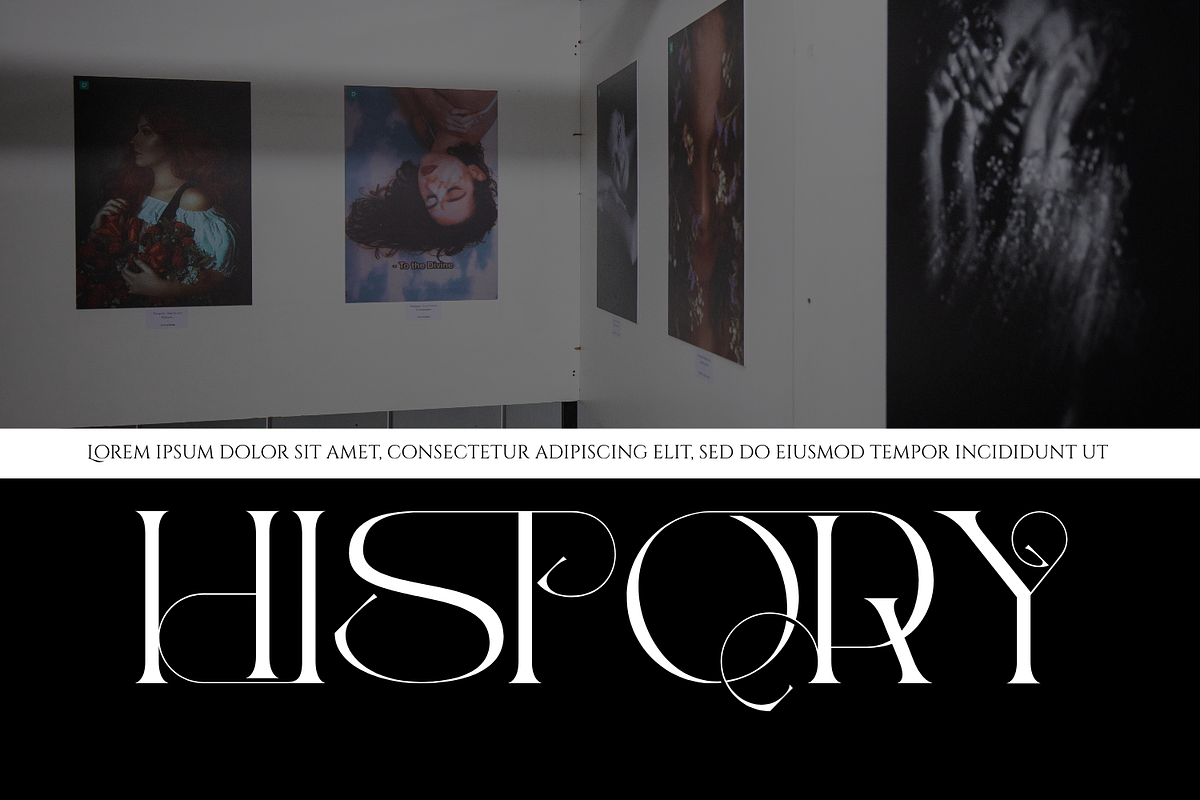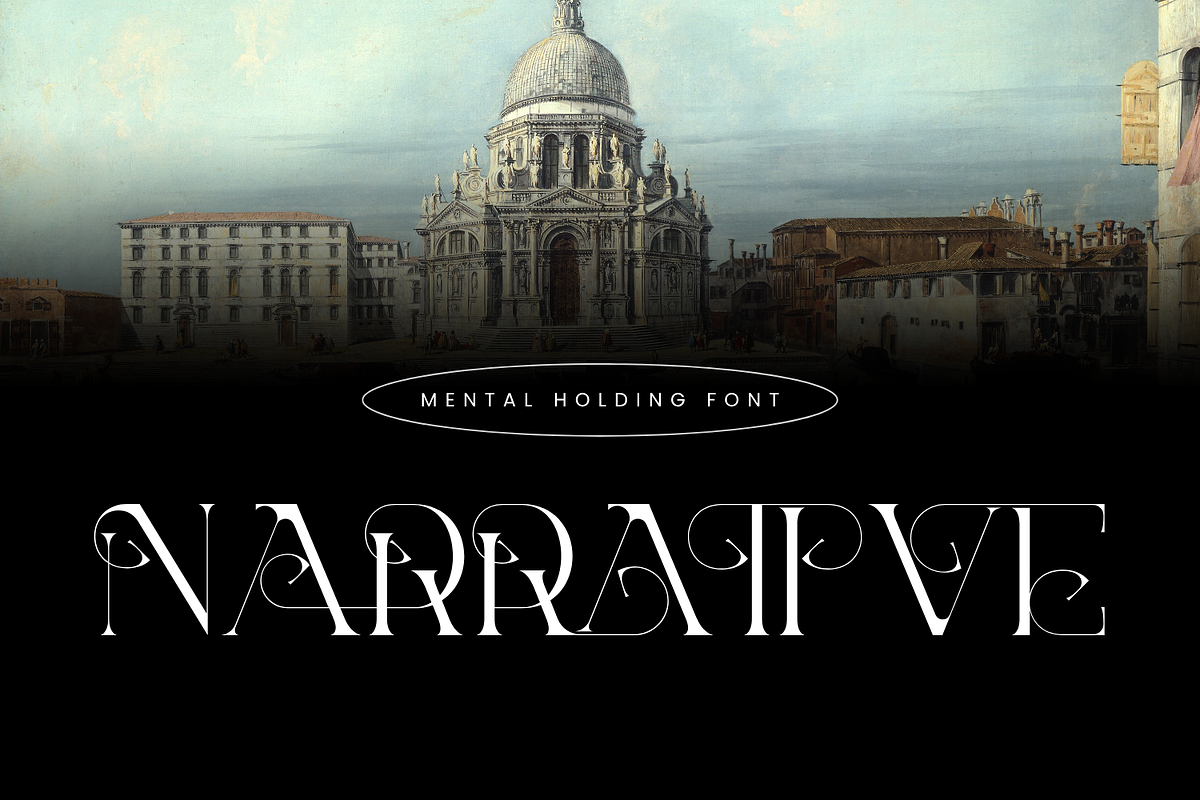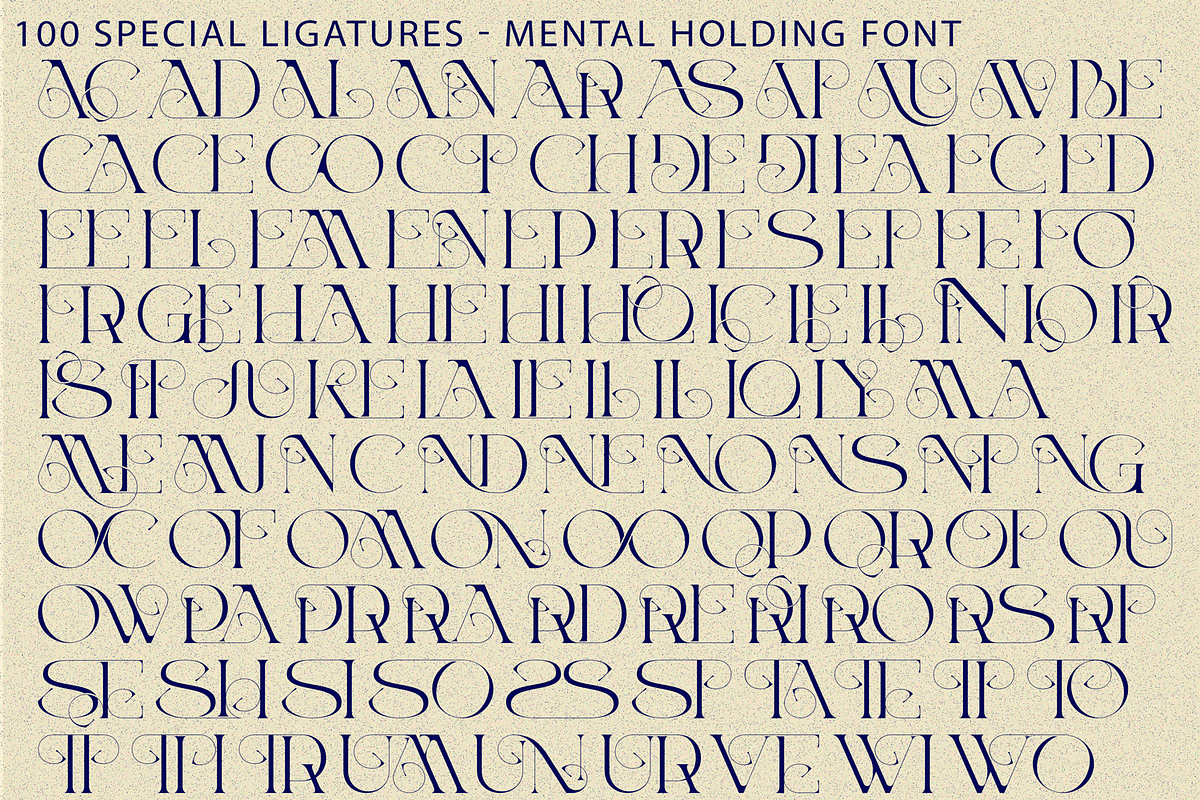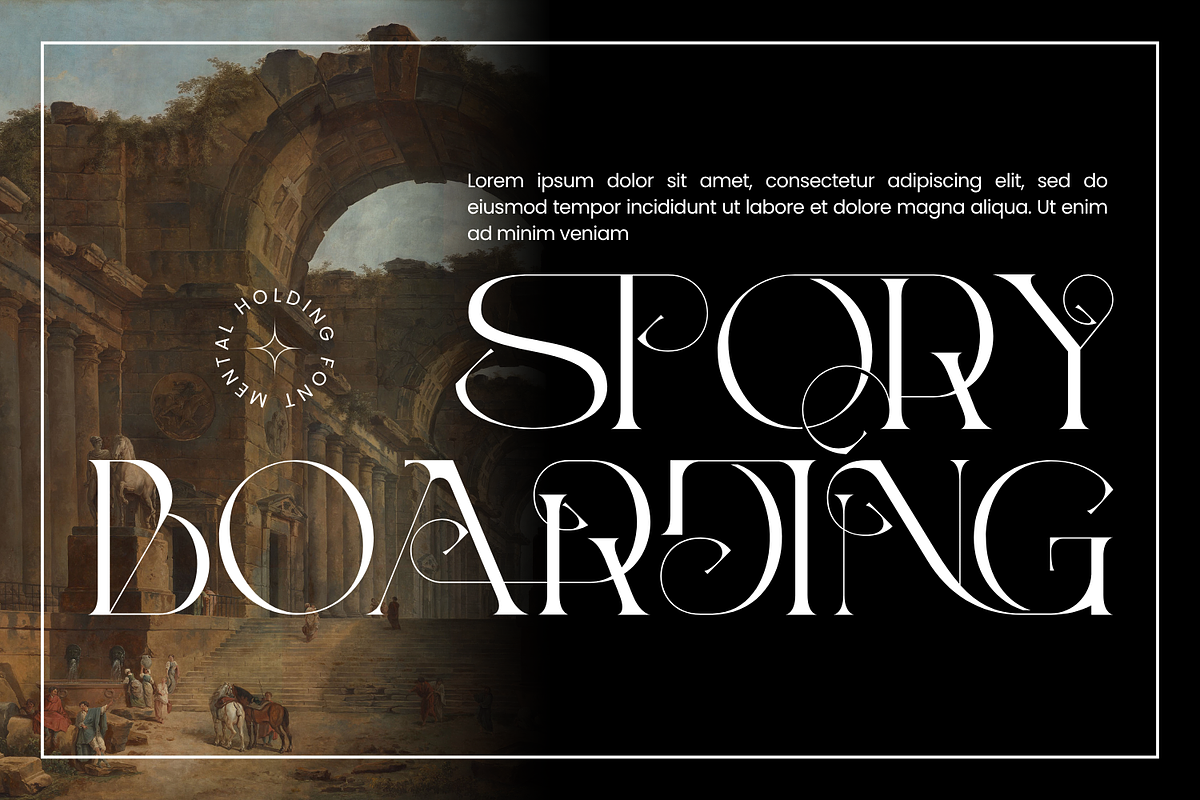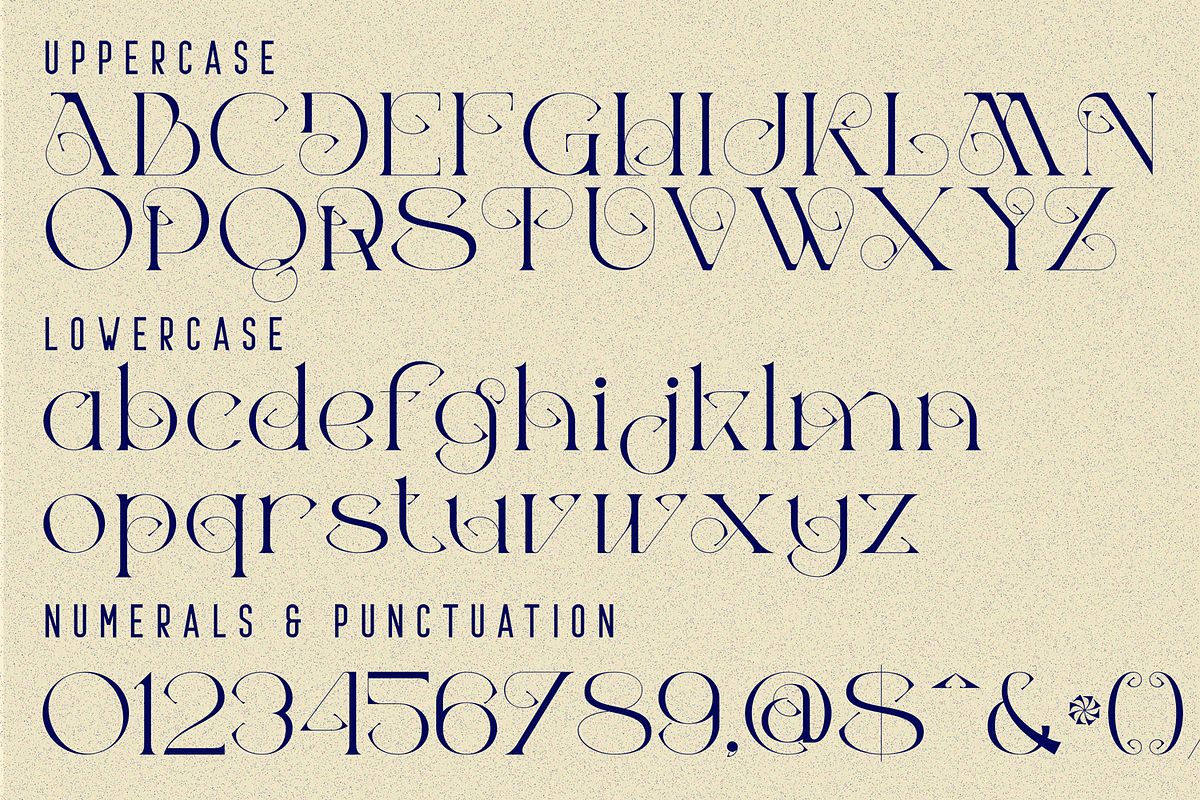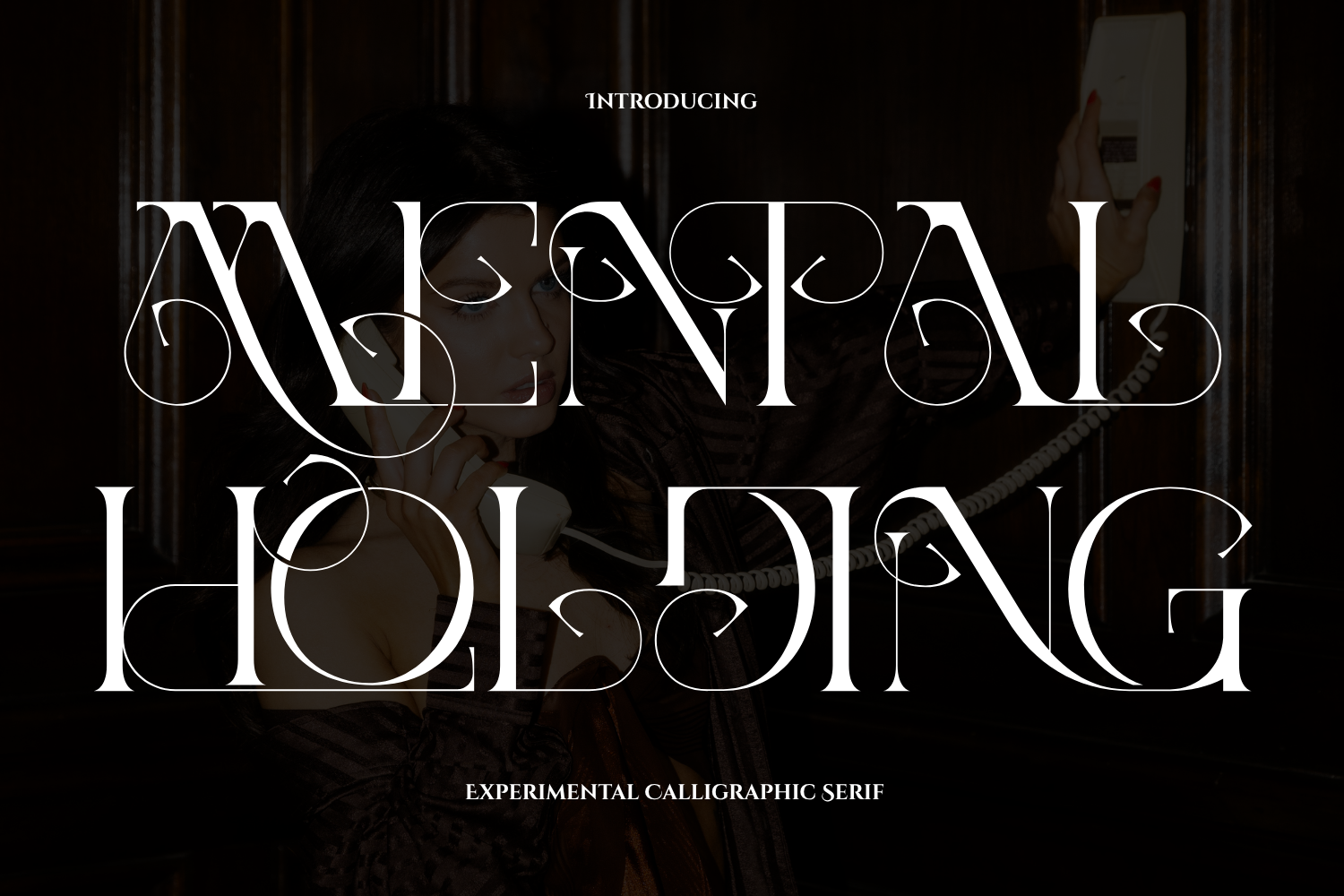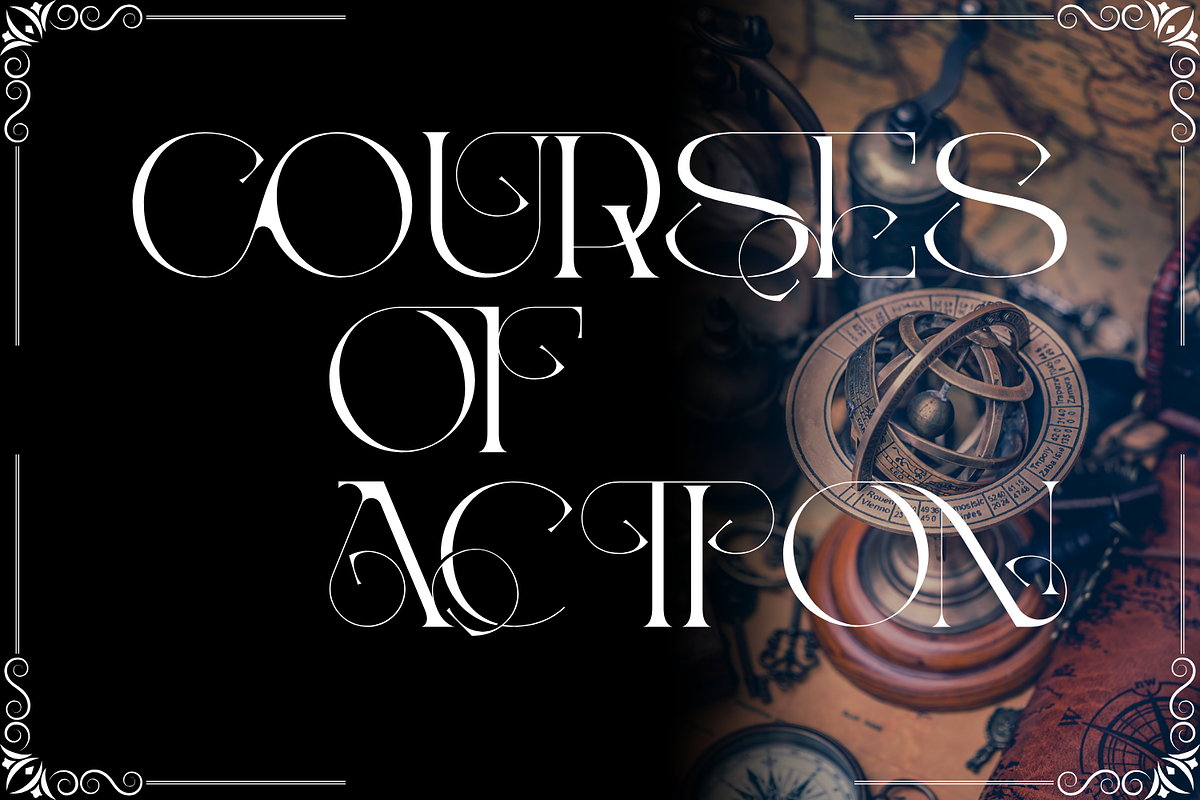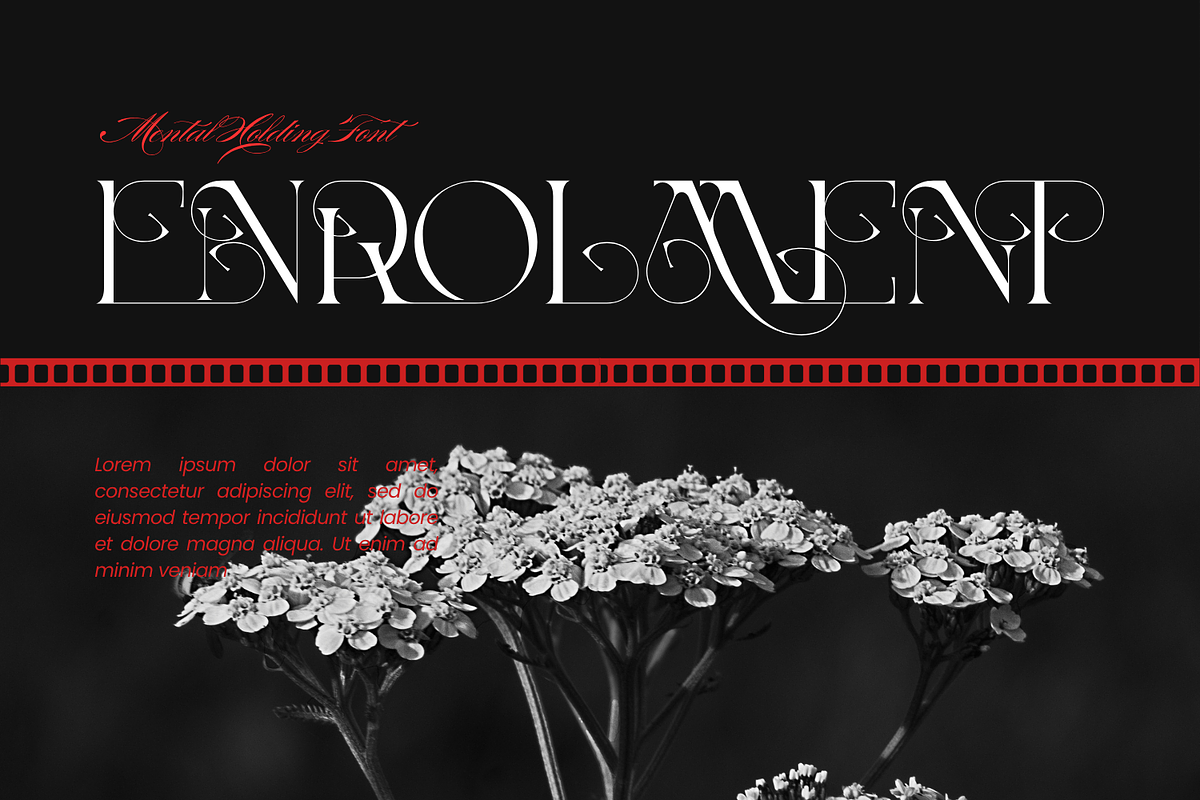
MENTAL HOLDING - ELEGANT FONT
MENTAL HOLDING - ELEGANT FONT is a luxurious modern serif display font that combines high-fashion elegance with artistic sophistication. Featuring dramatic high-contrast strokes, refined hairline details, and beautifully integrated decorative swashes, this typeface transforms every word into a striking visual statement. Inspired by luxury editorials, couture branding, and bespoke monogram design, MENTAL HOLDING showcases graceful curves, architectural letterforms, and ornamental details that flow seamlessly throughout the character set. The unique balance between bold structure and delicate linework creates a timeless aesthetic that feels both modern and exceptionally refined.
🔤Features:
Uppercase & Lowercase Letters
Around 100 Special Ligatures & Alternates
Accented Characters for multilingual support
🔤About 100 ligatures combined with Stylistic Alternates Font:
ac ad al an ar as at au av be ca ce ch co ct de di ea ec ed ee el em en ep er es et fe fo fr ge ha he hi ho ie ic il in io ir is it ju ke la le li ll lo ly ma me mi nc nd ne ng no nt ns oc of om on oo op or ot ou ow pa pr ra rd re ri ro rs rt se sh si so ss st ta te th ti to tr tt um un ur ve wi wo